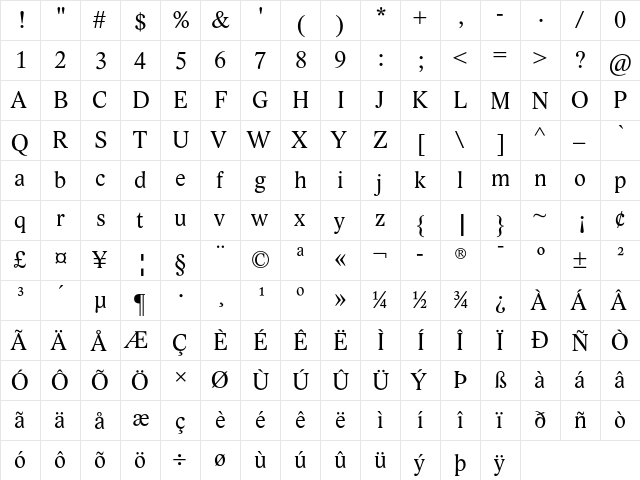
Lido STF Regular
| Designer | Frantisek Storm |
Design Context for Lido STF Typeface
Lido STF takes a measured approach to typography — its balanced proportions and neutral character make it a reliable workhorse for both digital and print work.